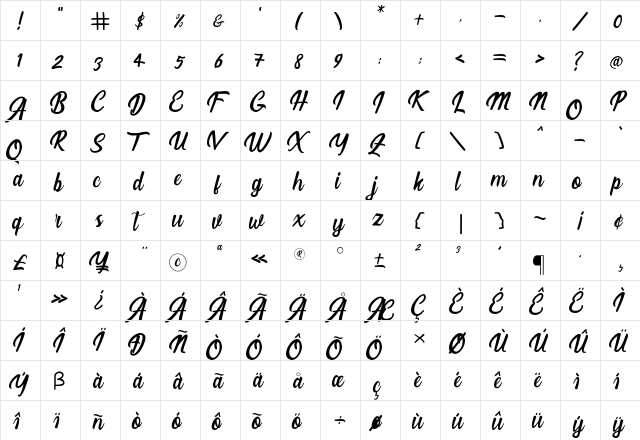
Larssonia Script Regular
Design Context for Larssonia Script Typeface
Larssonia Script brings a calligraphic fluidity to the page — its connecting strokes and expressive curves give it an unmistakably human quality.
Font Pairing: Combine Larssonia Script with a simple geometric sans for maximum contrast — the tension between flowing curves and clean structure is a classic typographic pairing.
Pro Tip: Use Larssonia Script for short runs of text — names, titles, or taglines. Extended body copy in script faces tires the eye quickly.